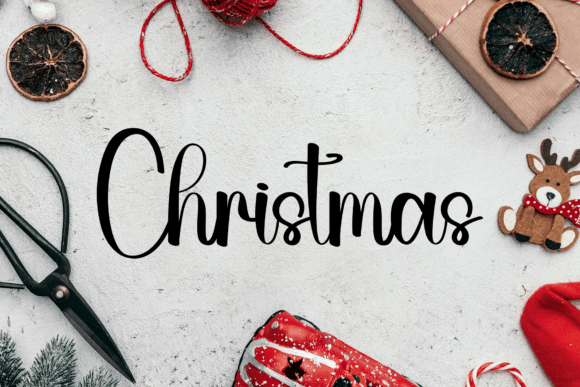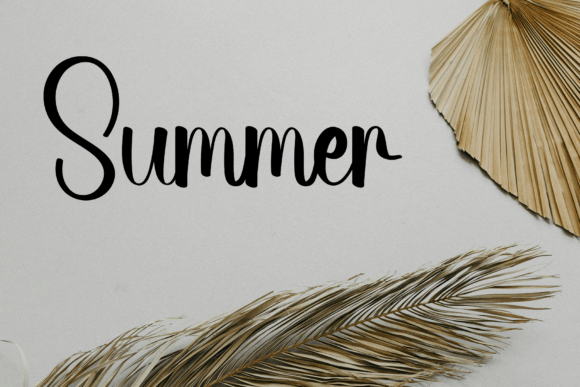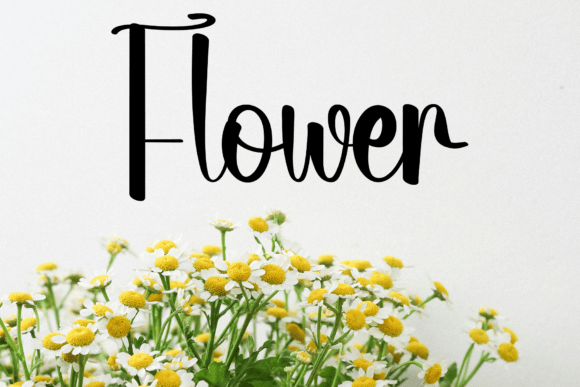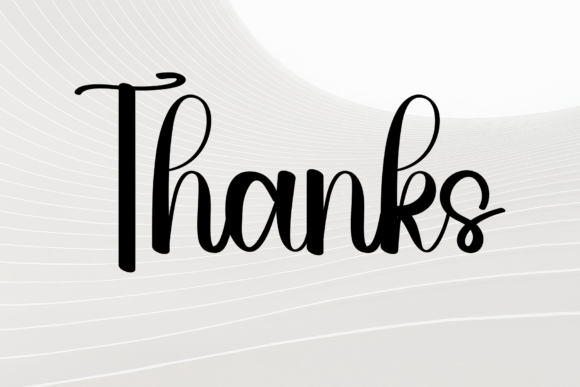
Introducing Blackhole Font: Add a Cozy Accent to Your Designs
Are you looking for a font that can add a touch of warmth and personality to your design projects? Look no further than Blackhole Font, a sweet and beautiful handwritten font that is sure to capture your audience’s attention. In this article, we’ll dive into the features and benefits of Blackhole Font, and explore how you can use it to elevate your designs.
What is Blackhole Font?
Blackhole Font is a stunning handwritten font that features characters that dance along the baseline, creating a playful and whimsical feel. This font is perfect for designers and crafters who want to add a cozy accent to their projects, whether it’s a logo, branding, packaging, or social media graphics. With its unique and charming design, Blackhole Font is sure to make your designs stand out from the crowd.
Key Features of Blackhole Font
- Handwritten design: Blackhole Font features a beautiful handwritten design that adds a personal touch to your projects.
- Characters that dance along the baseline: The font’s unique design features characters that dance along the baseline, creating a playful and whimsical feel.
- Cozy and inviting: Blackhole Font has a warm and inviting feel that’s perfect for creating cozy and welcoming designs.
- Versatile: This font is versatile and can be used for a wide range of design projects, from logos and branding to packaging and social media graphics.
Benefits of Using Blackhole Font
So why should you choose Blackhole Font for your design projects? Here are just a few benefits of using this amazing font:
- Adds personality to your designs: Blackhole Font adds a personal touch to your designs, making them more relatable and engaging.
- Creates a cozy atmosphere: The font’s warm and inviting feel creates a cozy atmosphere that’s perfect for designs that need to evoke a sense of comfort and warmth.
- Stand out from the crowd: With its unique and charming design, Blackhole Font is sure to make your designs stand out from the crowd.
How to Use Blackhole Font
Using Blackhole Font is easy! Here are a few tips for incorporating this font into your design projects:
- Pair it with other fonts: Blackhole Font pairs well with other fonts, so feel free to experiment with different combinations to create a unique look.
- Use it for headings and titles: This font is perfect for headings and titles, where its playful and whimsical feel can really shine.
- Add it to your branding: Blackhole Font can add a personal touch to your branding, making it more relatable and engaging.
- Experiment with different colors: This font looks great in a range of colors, so don’t be afraid to experiment and find the perfect hue for your design.
Who is Blackhole Font for?
Blackhole Font is perfect for designers and crafters who want to add a touch of warmth and personality to their design projects. This font is ideal for:
- Graphic designers: Blackhole Font is a great choice for graphic designers who want to create unique and engaging designs.
- Crafters: This font is perfect for crafters who want to add a personal touch to their projects, such as handmade cards and gift tags.
- Small business owners: Blackhole Font can add a personal touch to your branding and marketing materials, making them more relatable and engaging.
In conclusion, Blackhole Font is a sweet and beautiful handwritten font that can add a cozy accent to any design project. With its unique and charming design, this font is sure to capture your audience’s attention and make your designs stand out from the crowd. Whether you’re a graphic designer, crafter, or small business owner, Blackhole Font is a great choice for anyone looking to add a touch of warmth and personality to their designs.